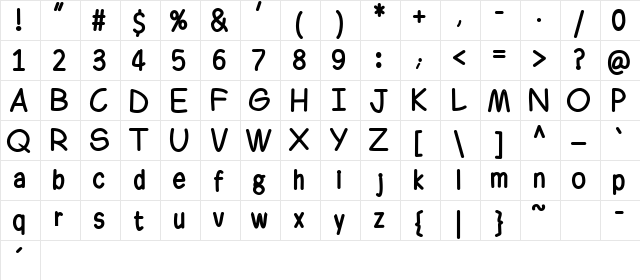
Ferrero Rocker Bold
| Designer | Letterara 2019 |
Design Context for Ferrero Rocker Typeface
Ferrero Rocker offers clean, dependable letterforms without strong stylistic allegiance, making it a practical choice for designers who need flexibility. Its bold stroke weight gives it real presence on the page.